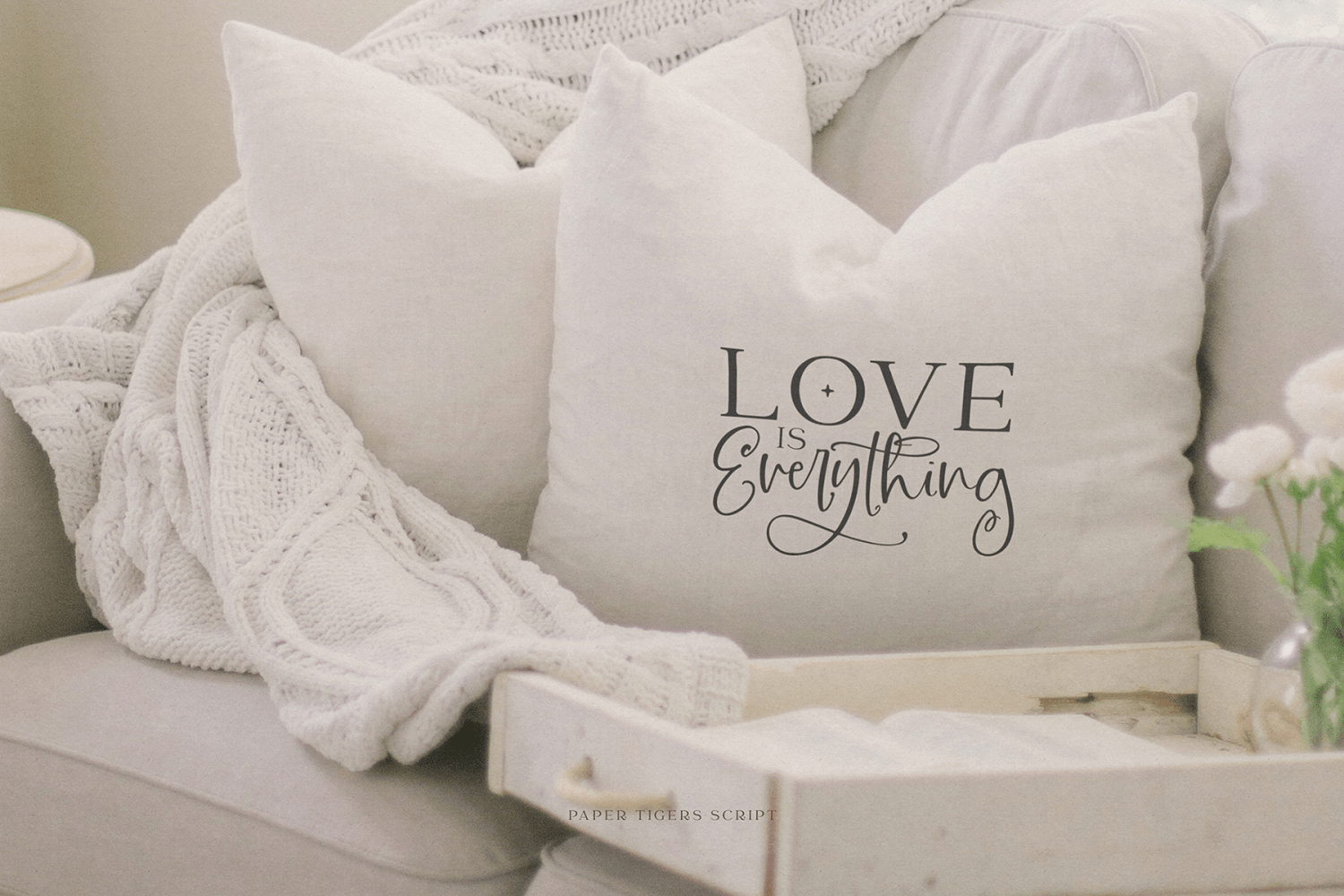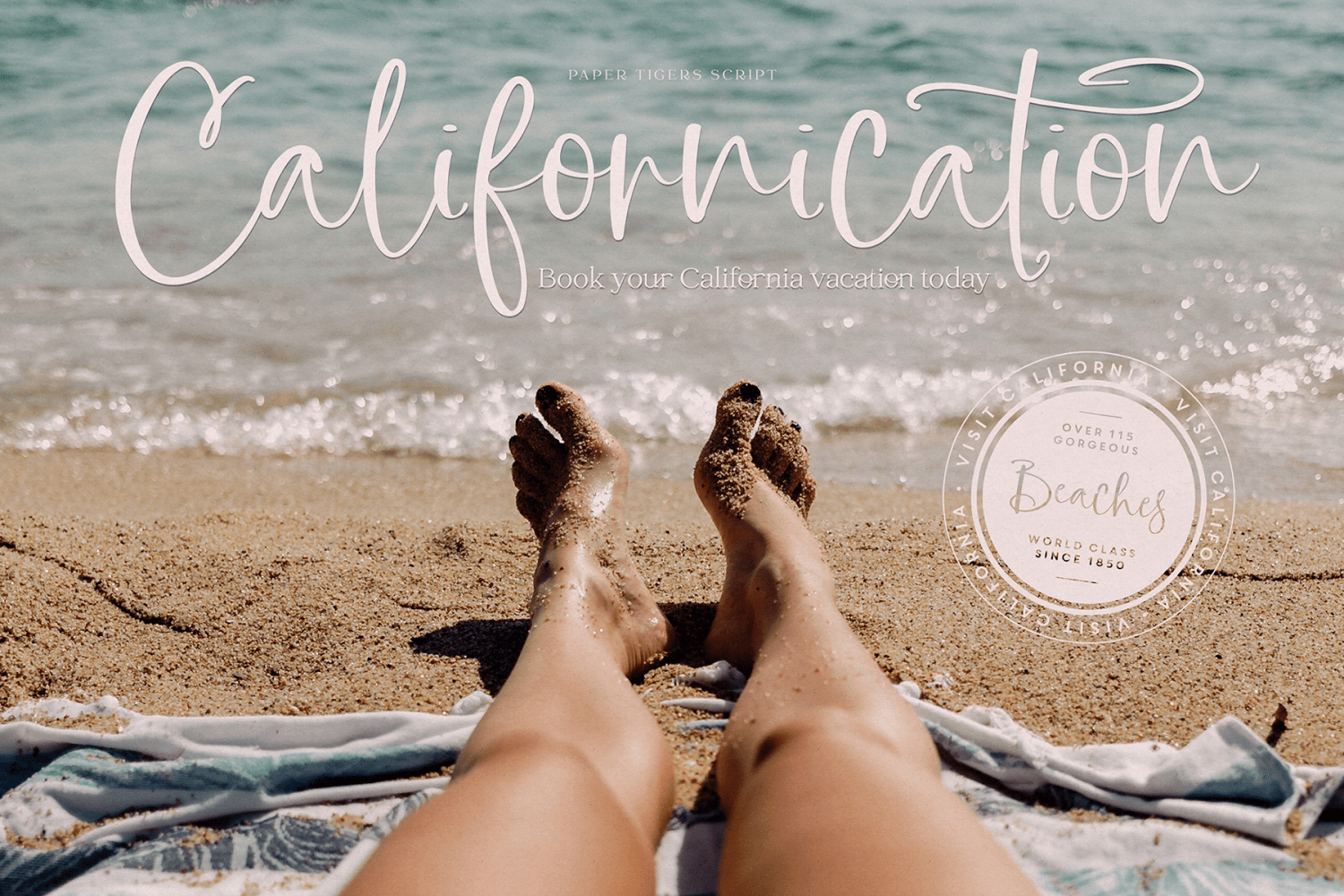
About Paper Tigers Script
Get your creative juices going with Paper Tigers Script, a swanky handwritten script font with a dancing baseline & loads of alternates and ligatures. Paper Tigers looks gorgeous on everything from branding to apparel, to notebooks, to invitations, to…